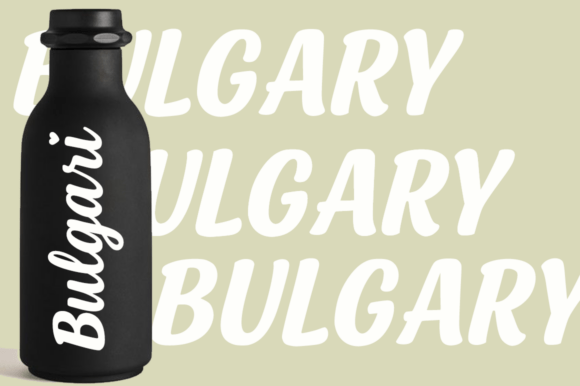
Marline Font
Introducing Marline – a contemporary hand-scribed script that infuses every curve with passion and sophistication. Marline’s smooth contours, subtly bold lines, and natural handwriting rhythm injects a touch of feminine charm and serenity into your design work. Its most captivating feature lies in the heart-shaped dot on the “i”, adding a sprinkle of romance that simply steals the show. This gentle detail makes Marline the ideal font for chic wedding invitations, high-end fashion branding, stylish logos, and tastefully poised quotes.